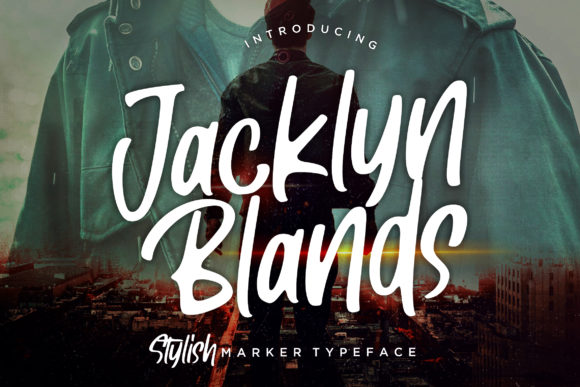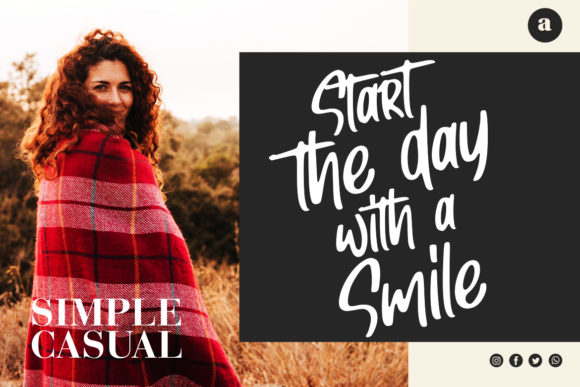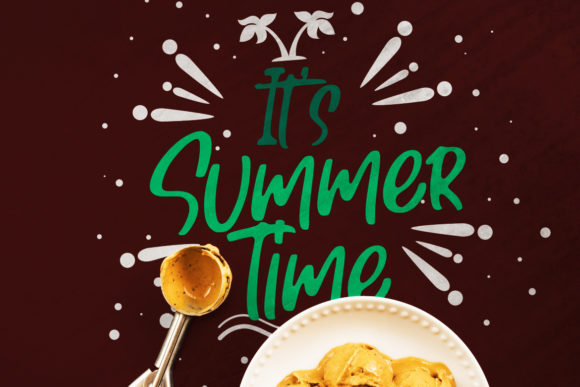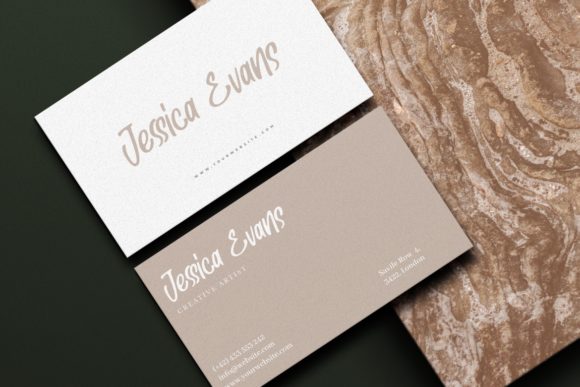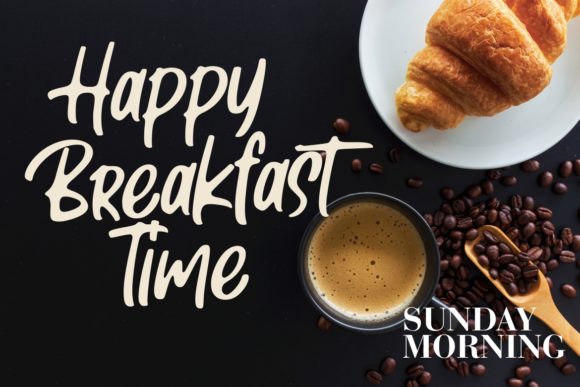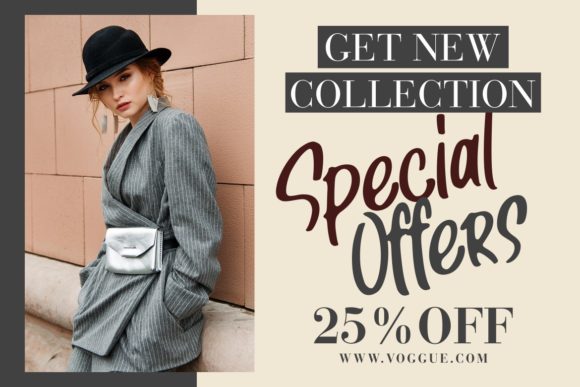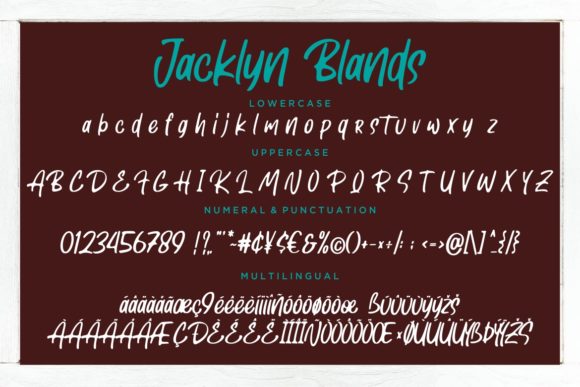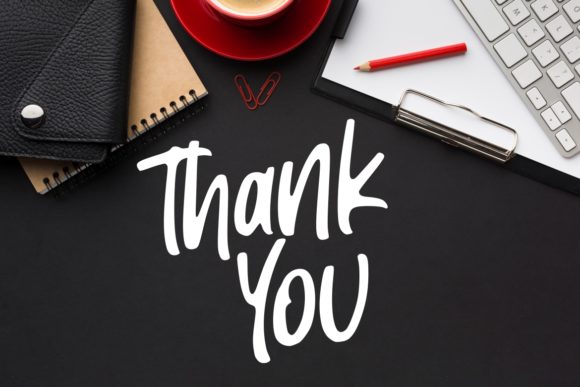
Jacklyn Blands Font
About Jacklyn Blands Font
Jacklyn Blands is a smooth and incredibly unique handwritten font, designed with the help of a stylish marker. Fall in love with its versatile style and use it to create spectacular designs!